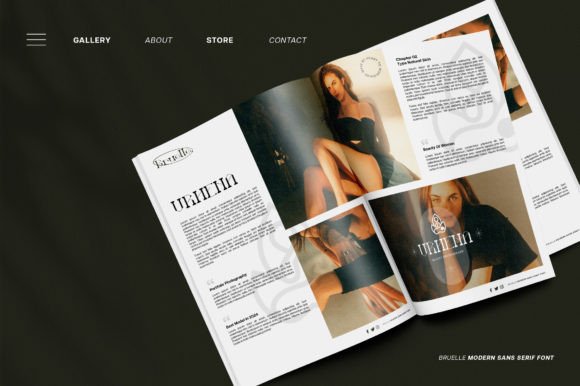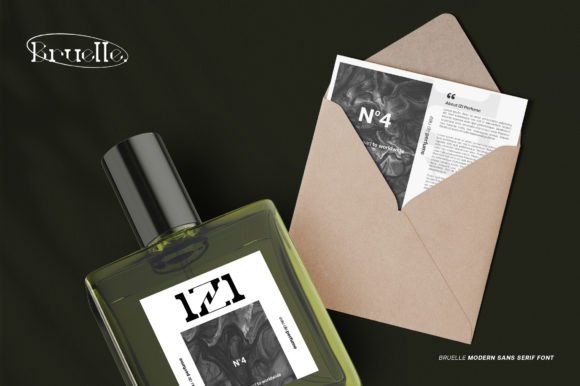
Bruelle Font: Elevate Your Design with Modern Serif Elegance
In the world of typography, a font can make or break a design. For designers, crafters, and anyone looking to add a touch of elegance to their projects, Bruelle Font is a game-changer. This modern serif font is not just a simple typeface; it’s a versatile tool that can elevate your logo lettering, branding, packaging, and more. In this article, we’ll dive deep into the features and benefits of Bruelle Font, and explore how it can become an indispensable part of your design arsenal.
What is Bruelle Font?
Bruelle Font is a contemporary serif font designed with a keen eye for detail and a deep understanding of what makes a typeface both functional and beautiful. Its design combines traditional serif elements with modern twists, including little lovely glyphic styles that add a unique touch to any project. Whether you’re working on a logo, label, packaging, sticker, or any other design element, Bruelle Font offers the versatility and elegance you need.
Key Features of Bruelle Font
- Modern Serif Design: Bruelle Font boasts a modern serif design that is both classic and contemporary, making it suitable for a wide range of design projects.
- Glyphic Styles: One of the standout features of Bruelle Font is its inclusion of little lovely glyphic styles. These add an extra layer of creativity to your designs, allowing for more personalized and unique outcomes.
- PUA Encoded: Bruelle Font is PUA (Private Use Area) encoded. This means that accessing all the glyphs and swashes is straightforward, giving you the flexibility to experiment with different looks and styles without hassle.
- Wide Range of Applications: From logo lettering and branding to labels, packaging, and stickers, Bruelle Font’s versatility knows no bounds. It’s designed to meet the needs of various projects, making it a valuable addition to any designer’s toolkit.
For designers and crafters, the right font can significantly impact the success of a project. Here are some benefits of using Bruelle Font:
- Ease of Use: Thanks to its PUA encoding, Bruelle Font is easy to use, even for those who are new to font design. You can easily access and use the various glyphs and swashes to enhance your designs.
- Time-Saving: With Bruelle Font, you have a go-to solution for many of your design needs. This can save you time in searching for the perfect font, allowing you to focus on other aspects of your project.
- Consistency: Using a consistent font across your projects can help build your brand identity. Bruelle Font’s elegant and modern design makes it an excellent choice for establishing a sophisticated look.
- Creativity Boost: The glyphic styles and swashes in Bruelle Font can serve as a creative spark for your designs. They offer a way to add personality and flair to your work, setting it apart from more generic designs.
How to Make the Most of Bruelle Font
To truly leverage the potential of Bruelle Font, consider the following tips:
- Experiment with Glyphs: Don’t be afraid to play around with the different glyphs and swashes. They can add a unique touch to your designs and help you discover new styles.
- Pair with Complementary Fonts: While Bruelle Font is versatile on its own, pairing it with complementary fonts can create interesting and dynamic text combinations.
- Use in Branding: For branding projects, consistency is key. Use Bruelle Font across all your materials to create a cohesive and recognizable brand identity.
- Explore Different Sizes and Weights: Bruelle Font’s design ensures it looks great in various sizes and weights. Experiment with these to find the perfect fit for your project.
| Author | brightonexart |
Bruelle Font is more than just a typeface; it’s a design companion that can elevate your projects to new heights. Its modern serif design, coupled with glyphic styles and PUA encoding, makes it an invaluable resource for designers and crafters. Whether you’re looking to create stunning logos, compelling packaging, or memorable branding, Bruelle Font offers the elegance and versatility you need. By incorporating Bruelle Font into your design toolkit, you’ll be well on your way to creating visually appealing and impactful designs that stand out in any medium.